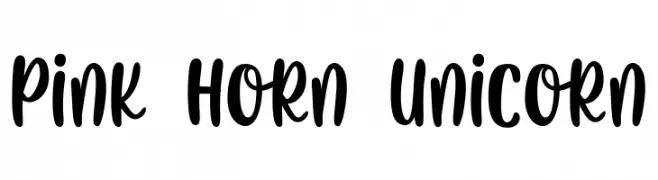
( Fonts by Kurnia Setyadi )
A playful, hand-drawn font with bold, rounded characters.
( Fonts by Tigadestd )
A playful, bold font with rounded, thick strokes and a whimsical, friendly appearance.
( Fonts by Kurnia Setyadi )
A playful, bold, and hand-drawn style font with a whimsical touch.
( Fonts by Kurnia Setyadi )
A bold, rounded font with a playful and friendly style.
( Fonts by Kurnia Setyadi )
A bold, playful font with rounded, hand-drawn characters.
( Fonts by Vunira Design )
A whimsical, decorative font with bold, intricate loops and curls.
( Fonts by HansCo )
A playful and whimsical script font with decorative swirls and interconnected letters.
( Fonts by Md Shohail Bhuian )
A bold, decorative font with embedded target symbols, perfect for creative projects.
A bold, three-dimensional font with a vintage yet modern style.
( Fonts by Bangkit Tri Setiadi )
A playful, bold font with a hand-drawn, whimsical style.